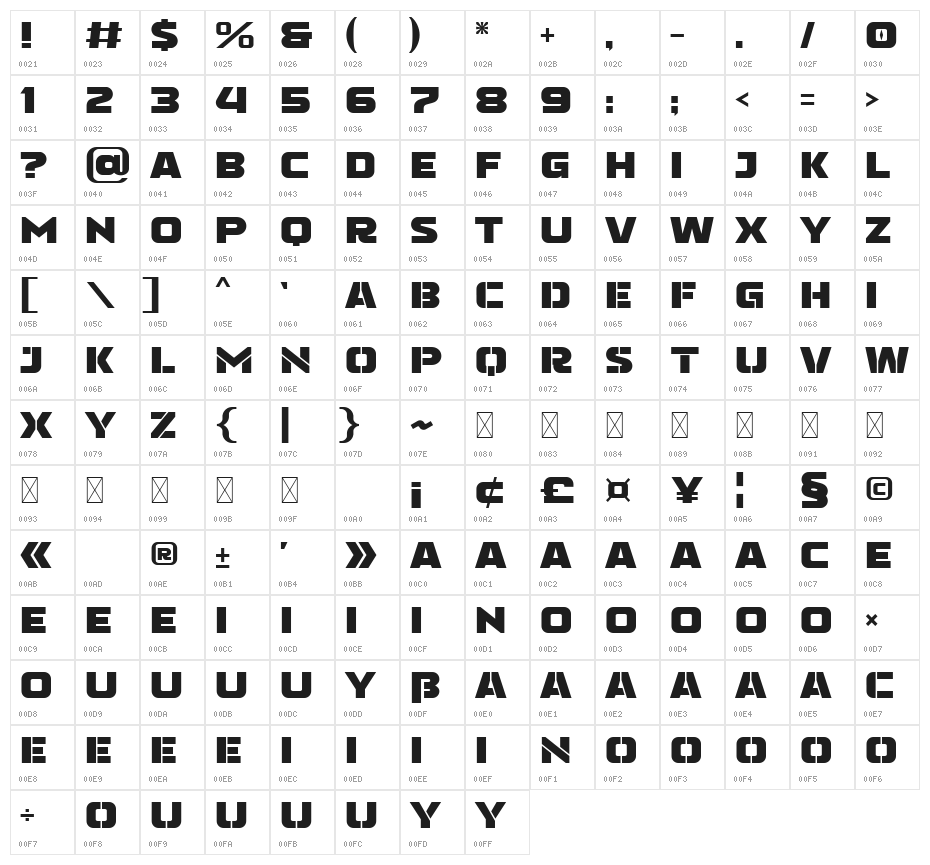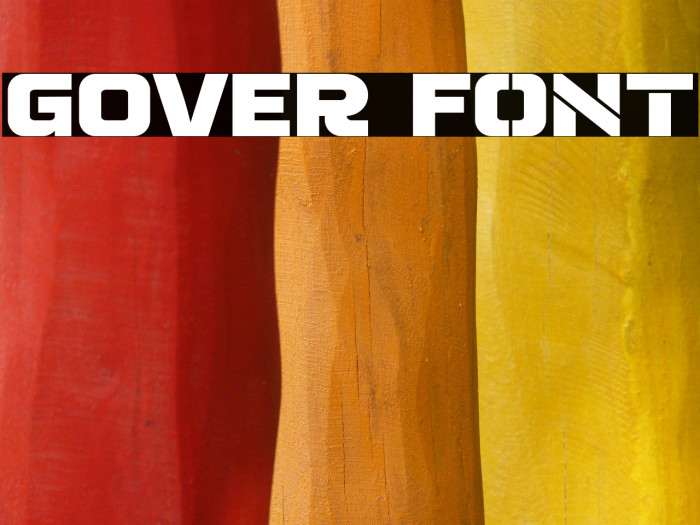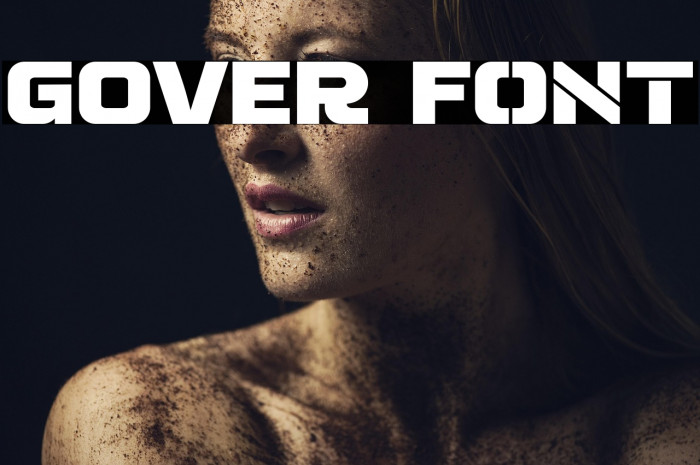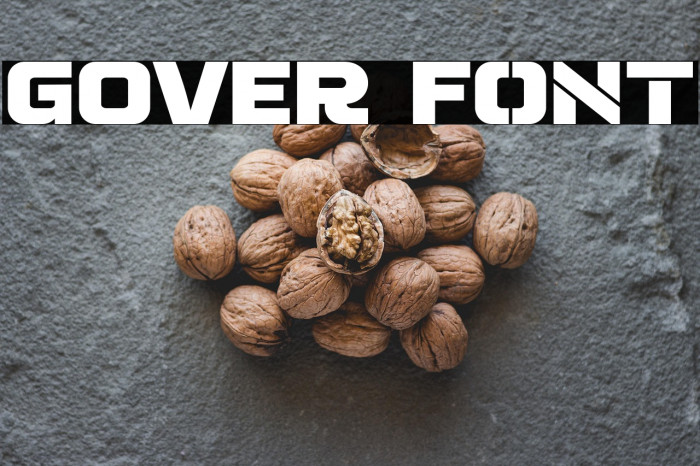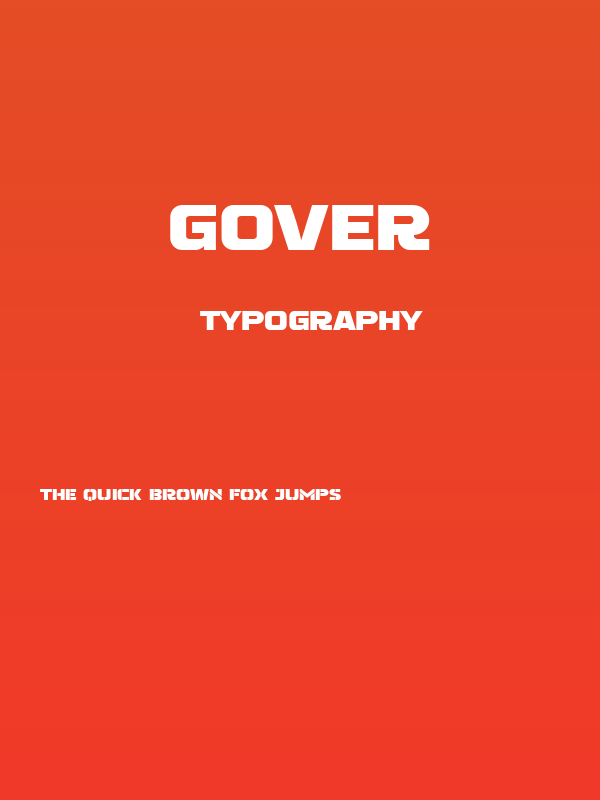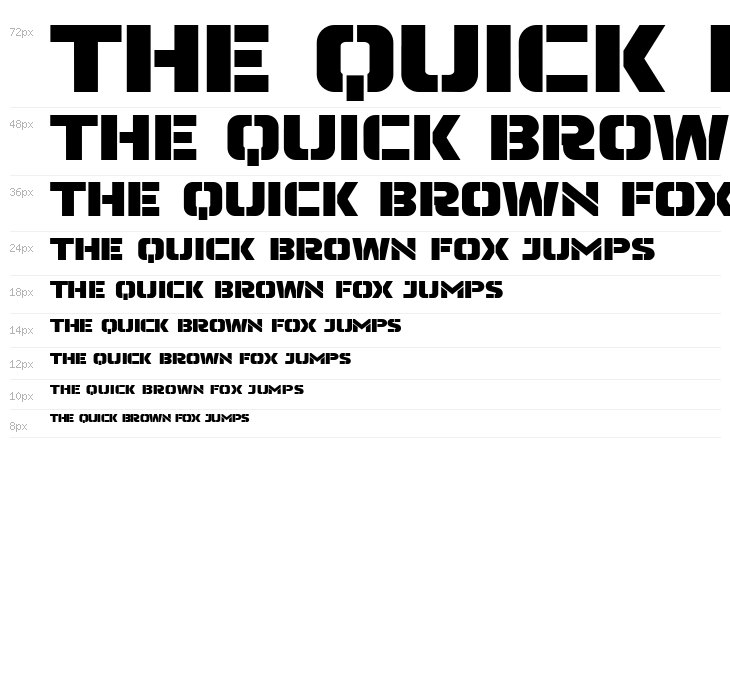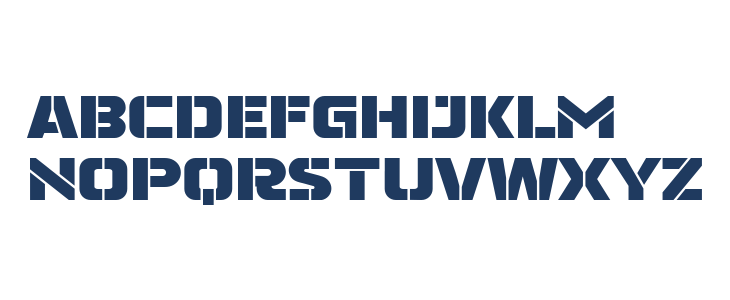
GOVER Font
GOVER Description
This font features a bold, geometric design with a modern and futuristic aesthetic. The characters are constructed with sharp angles and clean lines, giving them a strong and impactful presence. The uppercase letters are particularly striking, with a uniform height and width that create a cohesive look. The numbers and special characters maintain the same bold style, ensuring consistency across all text elements. This font is ideal for projects that require a strong visual impact, such as branding, advertising, and digital media.
| Proposed Projects | Ideal for branding, advertising, digital media, and any project needing a strong visual impact. |